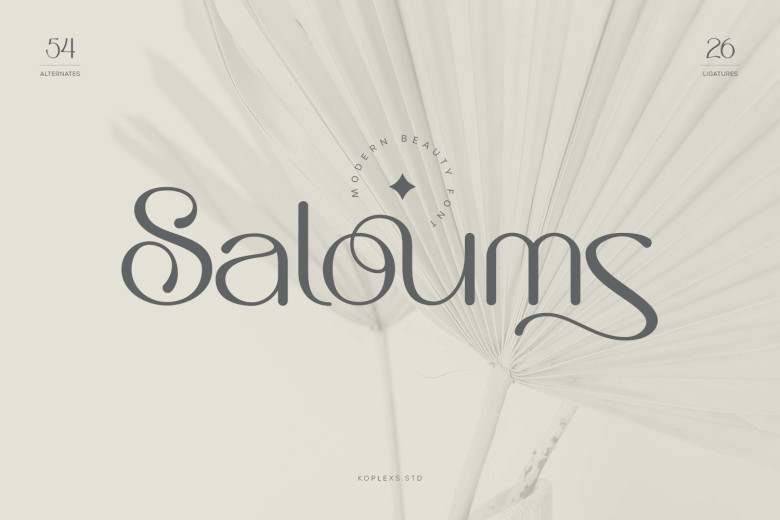
Saloums Font
Saloums Font is an exquisite collection of feminine, modern elegant characters designed to give any design or branding project a distinct appearance. Combining elegance with style, Saloums Font can be used in various applications like logos, book covers and perfume labels; fashion magazines; invitations; or anything that requires distinctive characters that will wow audiences! Not only will you discover beautiful characters; you will be charmed by its variety.
Saloums Sans Serif Font